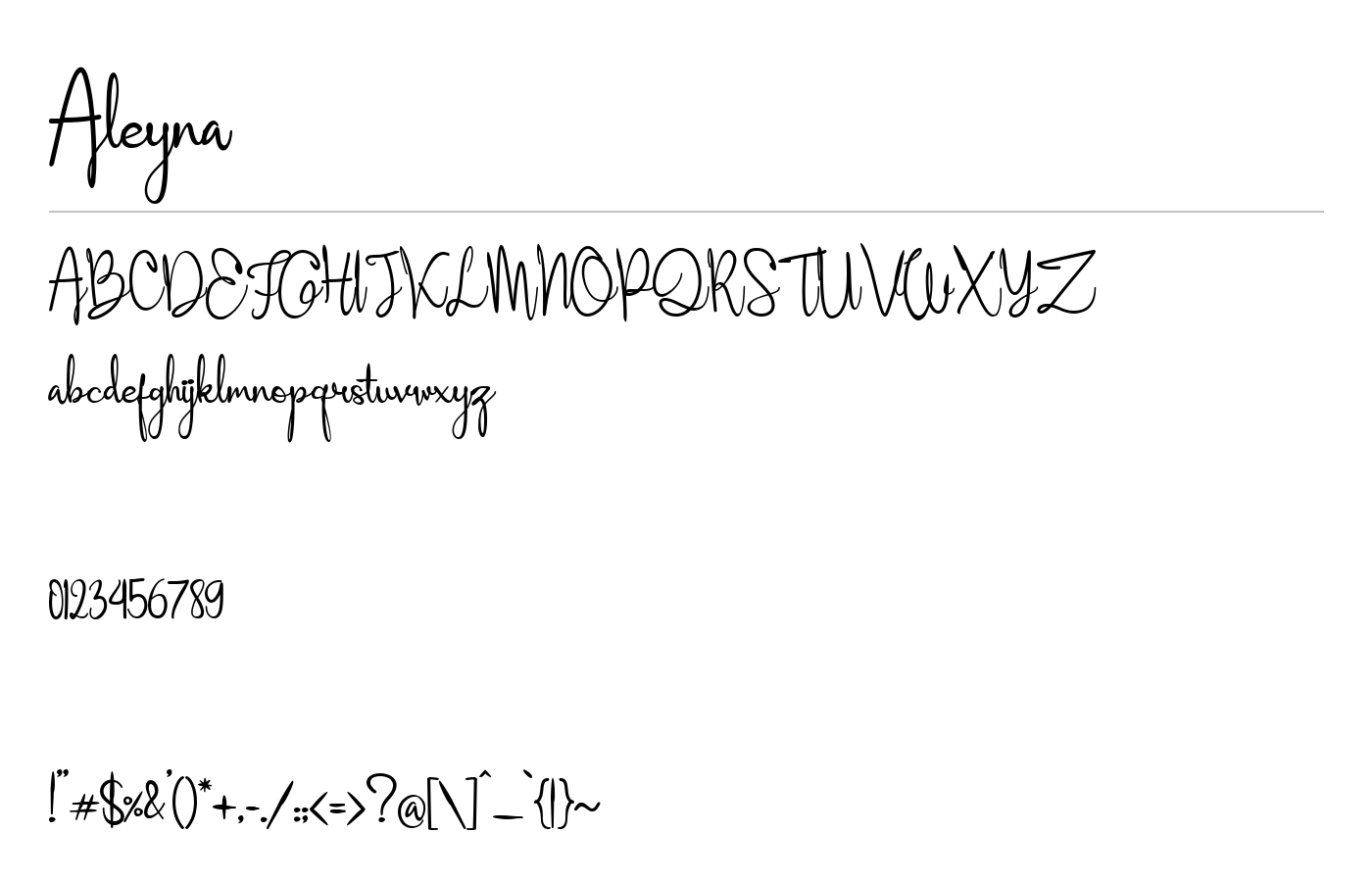
Aleyna is a whimsical, handwritten script font with a delicate and playful vibe, featuring tall, narrow letterforms and smooth, flowing lines. Its light weight and elegant strokes make it perfect for creative projects seeking a personal, friendly touch, such as invitations, branding, or casual editorial uses. This font’s unique charm and airy letter spacing give it a warm, approachable personality that works well in both digital and print designs.
Aleyna Font
About Aleyna Font